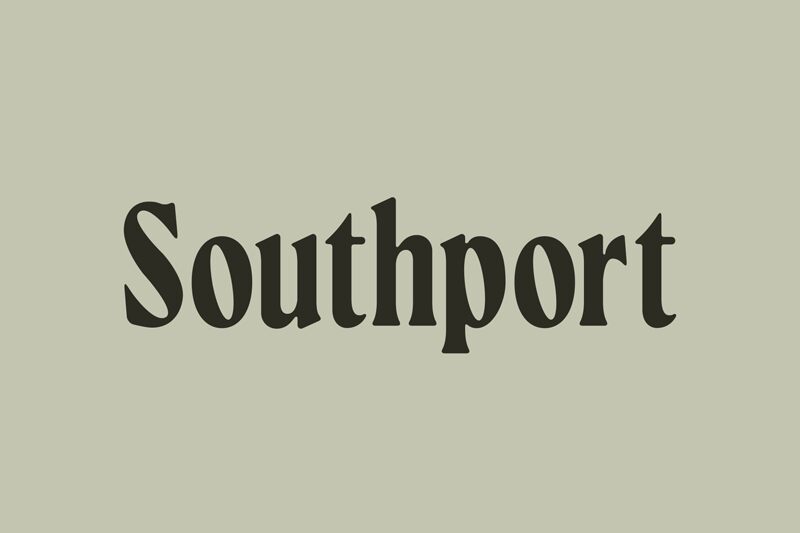
Southport
Southport is an elegantly crafted serif font that exudes a warm, inviting charm. Its condensed structure enhances its sophistication, making each letterform feel refined yet approachable. This font balances grace and style, ideal for projects where distinction is key.
Perfect for high-end branding, Southport effortlessly elevates logo designs and magazine layouts with its unique character. Whether featured on product packaging or elegant invitations, this font communicates quality and attention to detail, ensuring that your message resonates warmly with audiences. With Southport, every design becomes a statement of elegance and taste, making it a versatile choice for creative professionals seeking to captivate their audience.